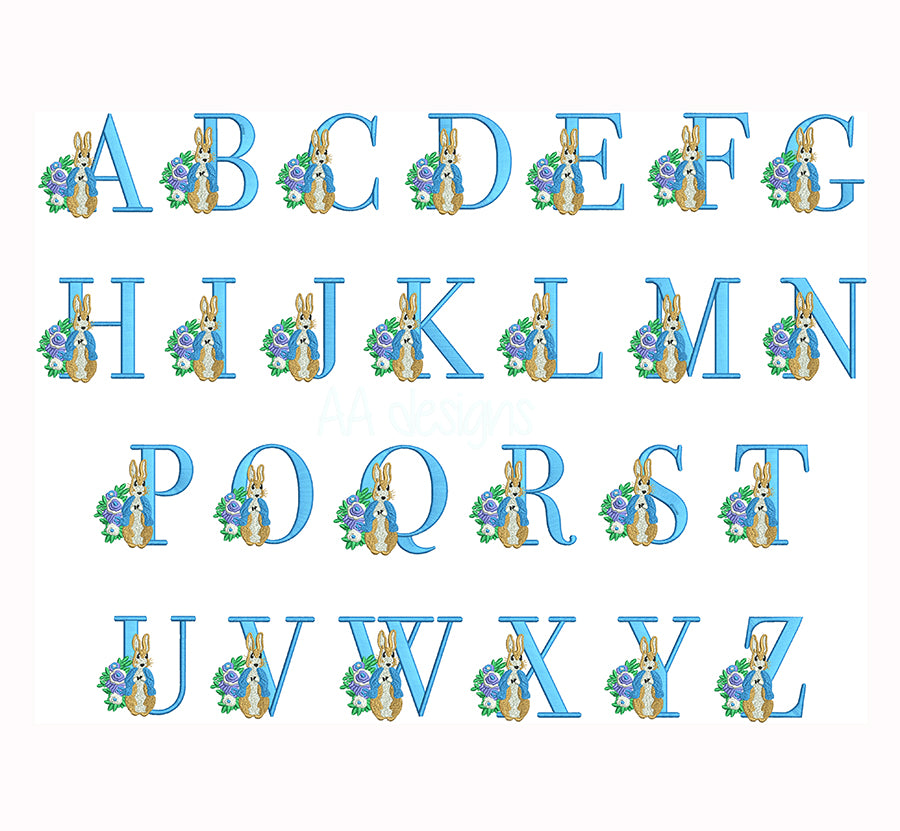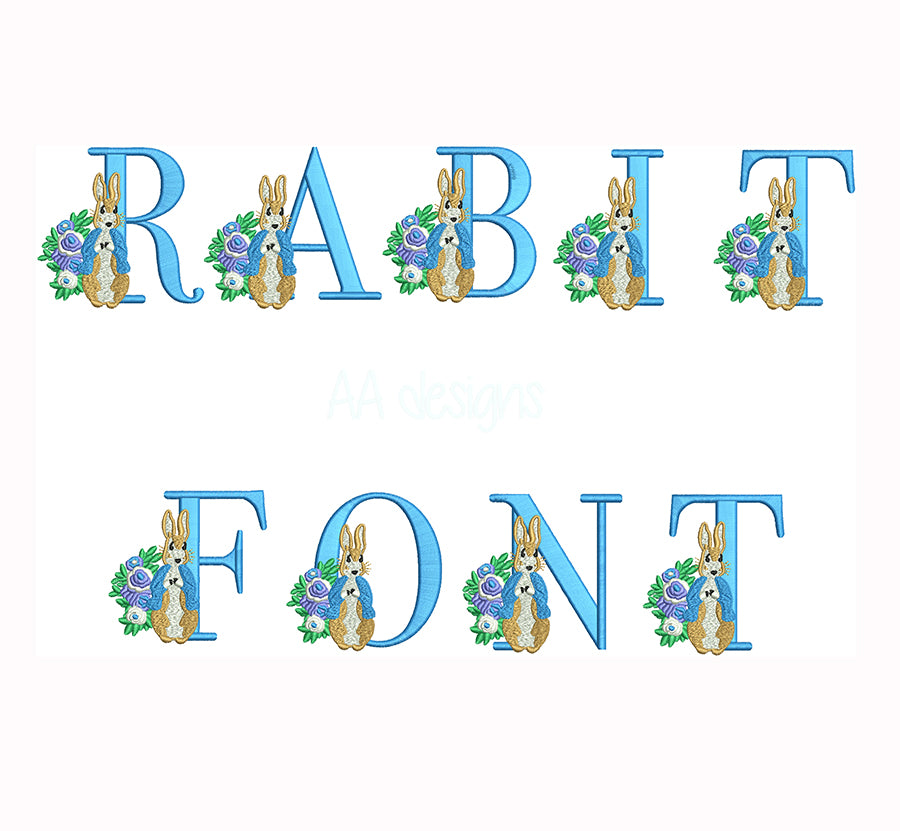
Little Bunny Embroidery Font
Hop into the sweetest stitches with the Little Bunny Embroidery Font — a charming, storybook-inspired machine embroidery font featuring delightful bunny-themed letterforms that bring classic, timeless cuteness to every project! 🐰🌿✨
With its soft, whimsical style, this font is perfect for personalizing baby shower gifts, Easter items, children's apparel, nursery décor, blankets, and any project that calls for a touch of gentle, garden-fresh charm.
- Clean stitching designed for small and medium sizes — ideal for baby and kids' items
- Perfect for onesies, bibs, blankets, Easter baskets, and nursery décor